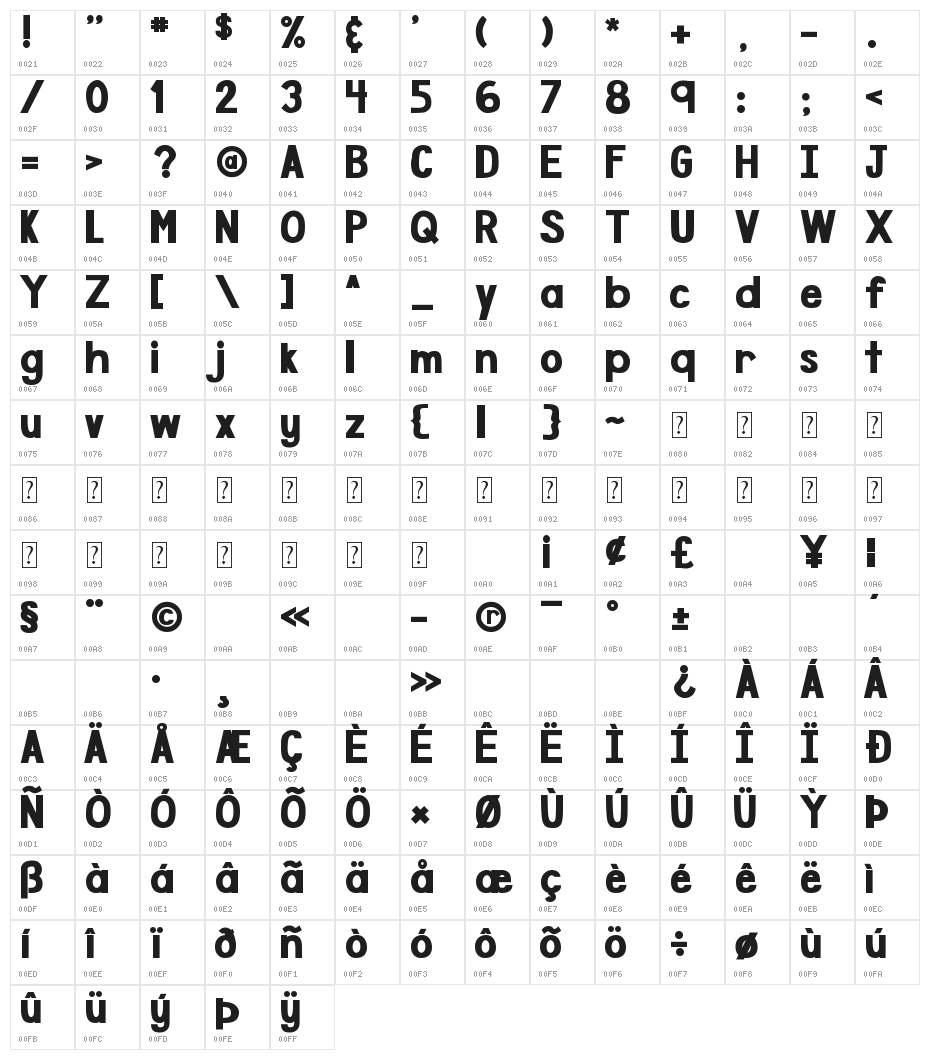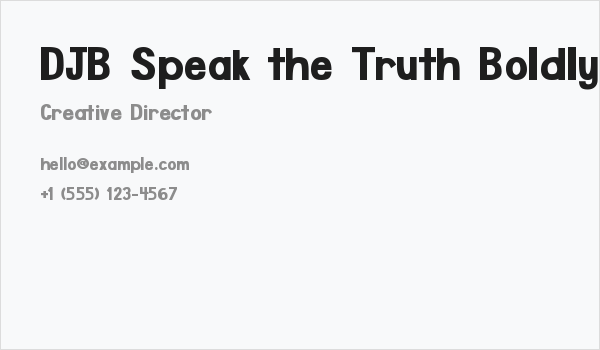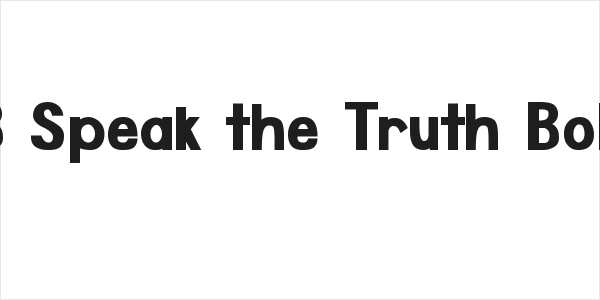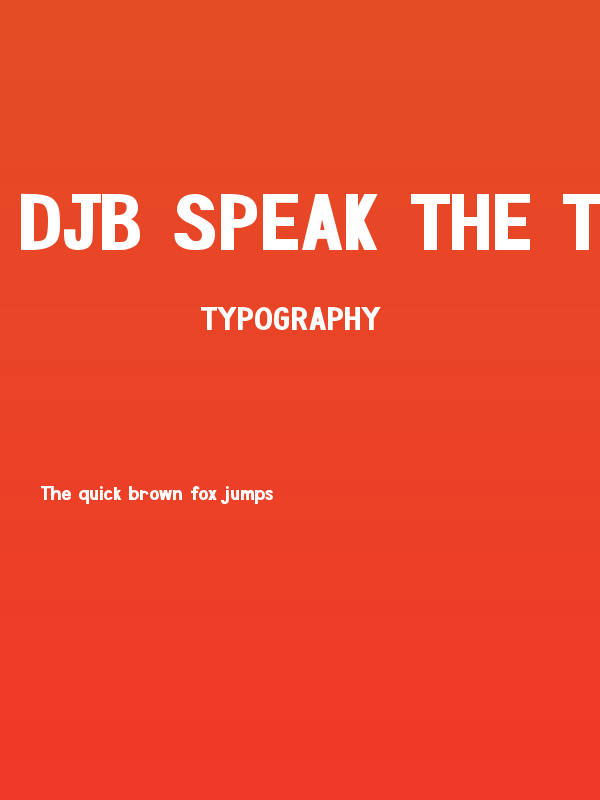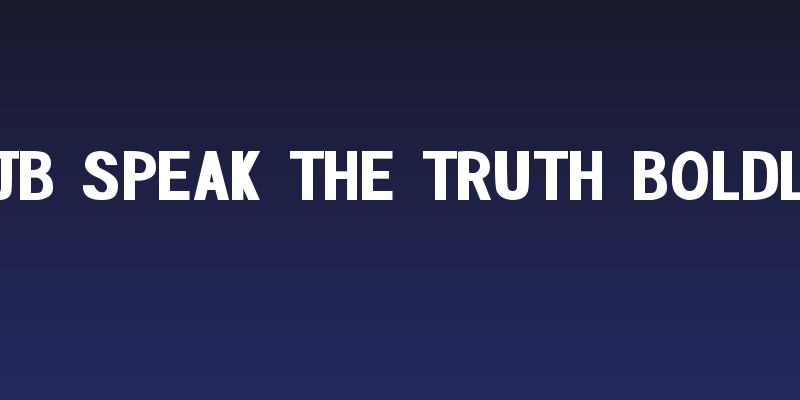
DJB Speak the Truth Boldly Font
DJB Speak the Truth Boldly Description
This font is characterized by its bold and assertive appearance, featuring thick strokes and a strong presence. The uppercase letters are uniform and blocky, providing a sense of stability and confidence. The lowercase letters maintain a similar weight, ensuring consistency across text. Numbers are equally bold, making them stand out effectively. Special characters are designed to match the overall boldness, ensuring they integrate seamlessly with the rest of the font. The font's design is straightforward, with minimal decorative elements, focusing on clarity and impact.
Proposed ProjectsIdeal for headlines, posters, branding materials, and any project requiring a strong visual impact.